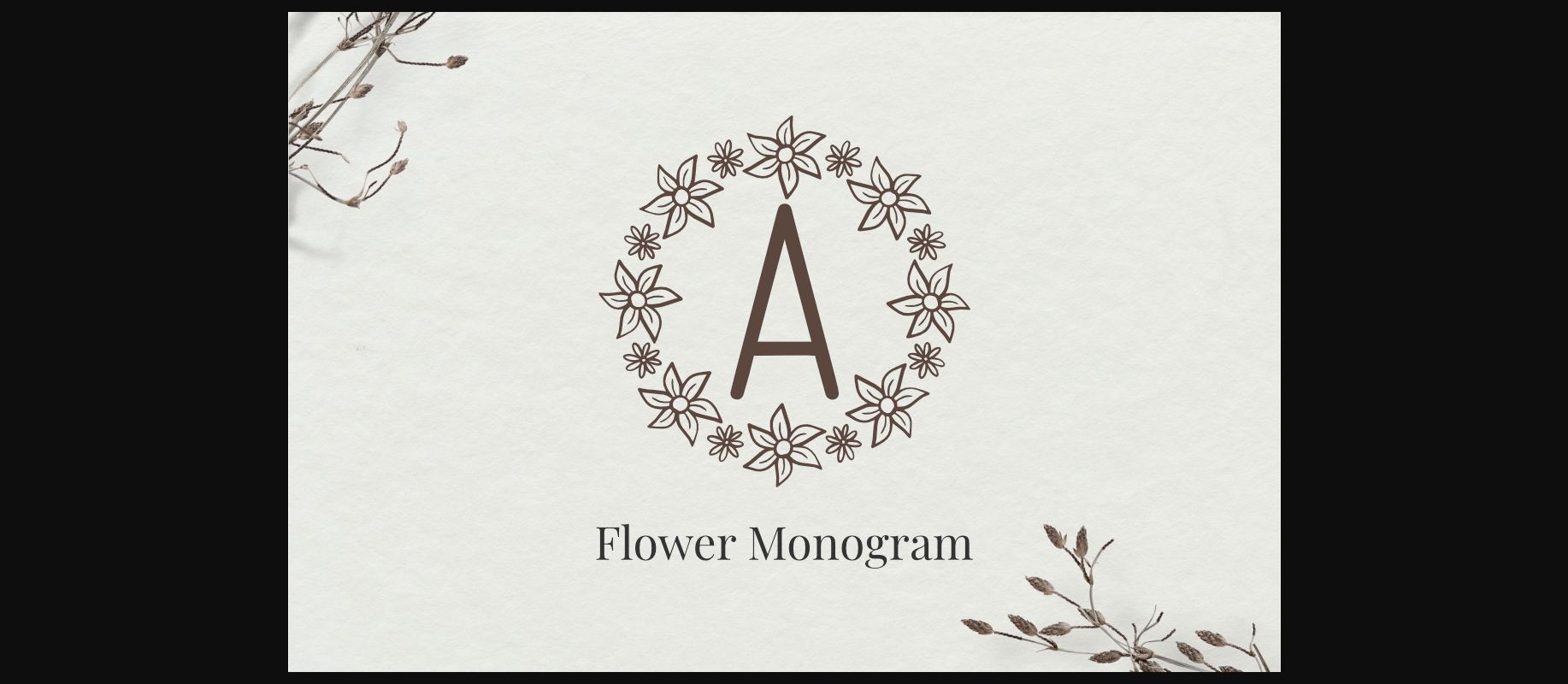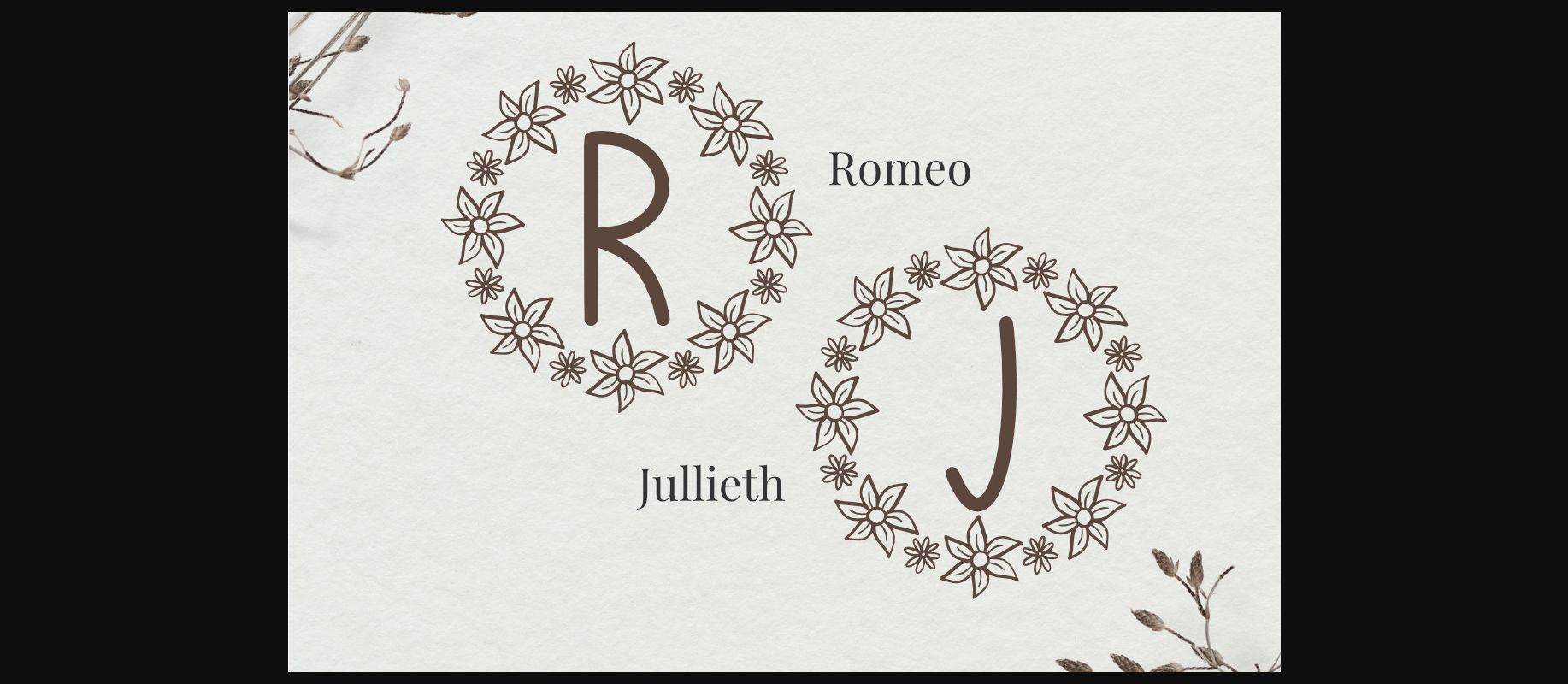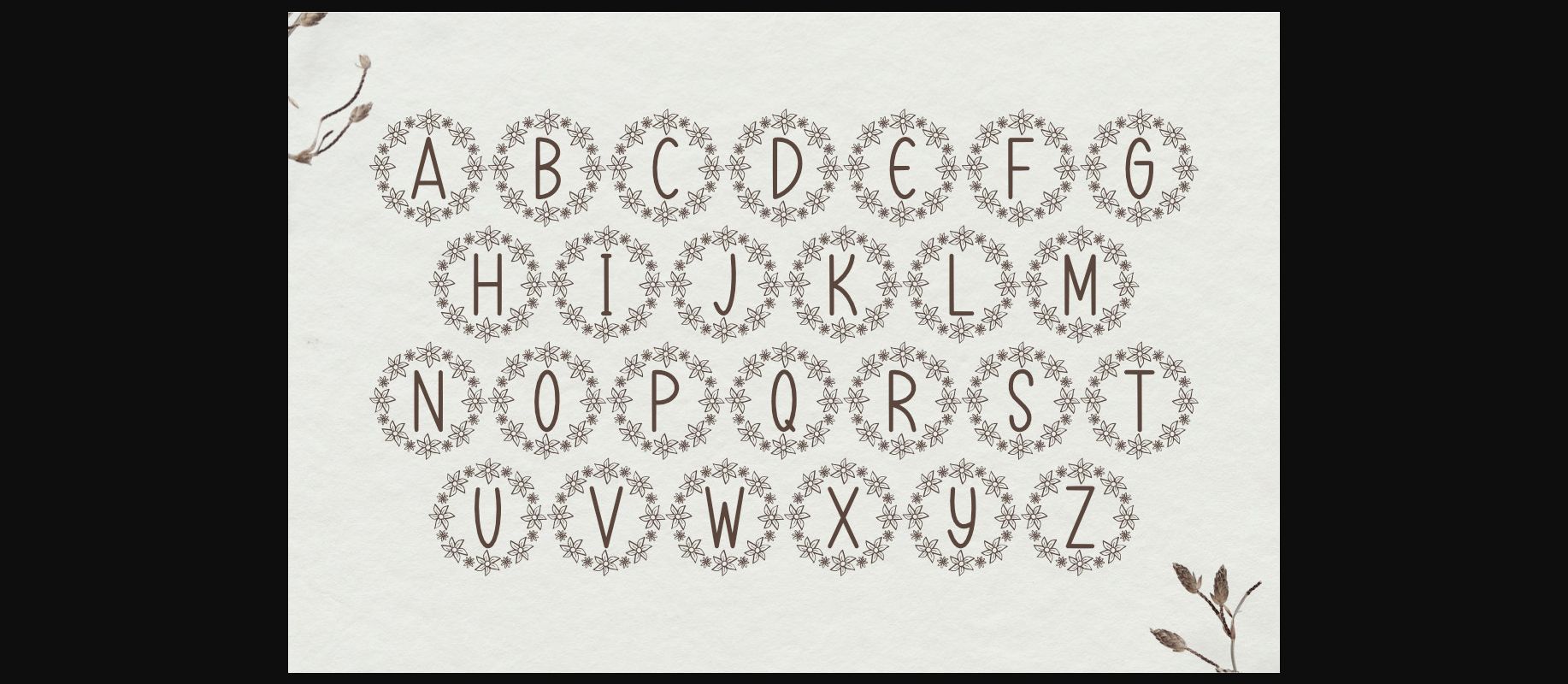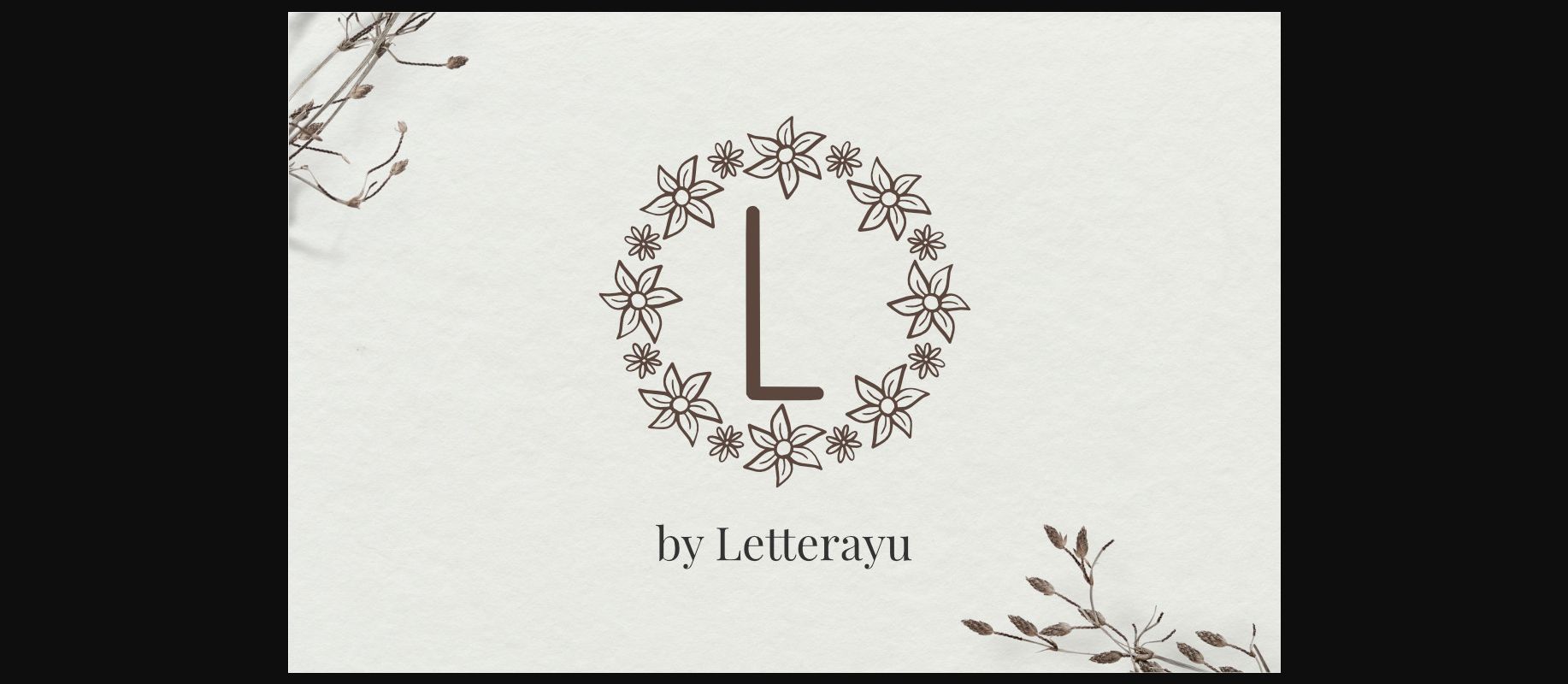
HomeDecorative FontsFlower Monogram Font Decorative Fonts Flower Monogram Font FacebookXPinterestWhatsApp 1 of 6 ... Flower Monogram Font Poster 2... Flower Monogram Font Poster 3... Flower Monogram Font Poster 4... Flower Monogram Font Poster 5... Flower Monogram Font Poster 6... About Flower Monogram Font Flower Monogram is a charming decorative font. Fall in love with its authentic feel and use it to create gorgeous invitations, beautiful stationary art, eye-catching social media posts, and cute greeting cards. DOWNLOAD NOW People also explored Play Scroll Font Take Trails Font Alesha Font Ganurupa Font Baby Sillentha Script Font New Darrel Allura Font chathaleya Coolvetica Hilbern Font 426 0 TagsFlower Monogram Font Previous articleThiara Monogram FontNext articleStars Christmas Font LEAVE A REPLY Cancel reply Comment: Please enter your comment! Name:* Please enter your name here Email:* You have entered an incorrect email address! Please enter your email address here Website: Save my name, email, and website in this browser for the next time I comment. Personal Use Free BD Spinner Personal Use Free Read more about this font Calega Personal Use Free Read more about this font Gonestones Personal Use Free Read more about this font Awesome Snowflakes Font Personal Use Free Read more about this font BLOG 5 Fonts That Will Dominate Design Trends in 2026 5 Fonts for 2026 That Will Dominate Design Trends Typography plays a critical role in visual communication, and as we look ahead to 2026, it’s... Transform Your Website: Elevate Your Typography with 7 Best Web Font Generators Using Fonts in Digital Marketing: Tips to Strengthen Your Brand Identity Top 7 Google Fonts Alternatives for Faster and Privacy-Friendly Web Design (2025)